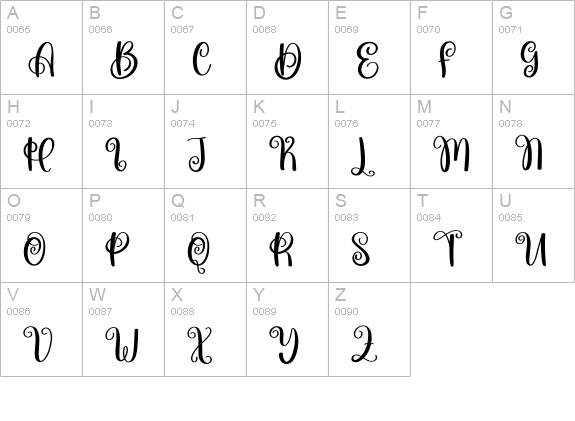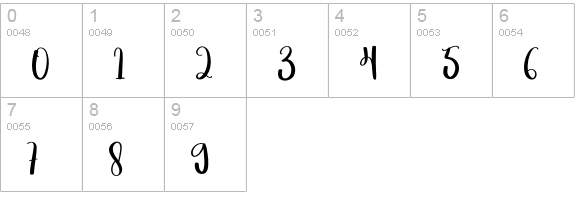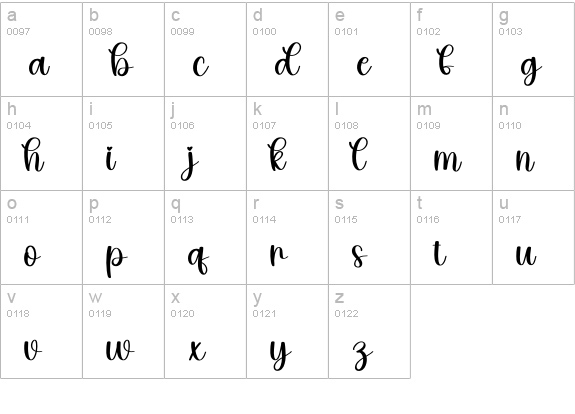
Restie Font Details
Restie is a free for personal use font in the Script > Handwritten category, designed by scratchones. It has been downloaded 28 times and is available for Windows, Mac and Linux.
Introducing Restie font, a modern and stylish typeface that brings a touch of elegance to any design project. With its sleek lines and sophisticated curves, Restie is perfect for creating eye-catching logos, branding materials, or social media graphics. This versatile font exudes a sense of professionalism and creativity, making it ideal for a wide range of applications.